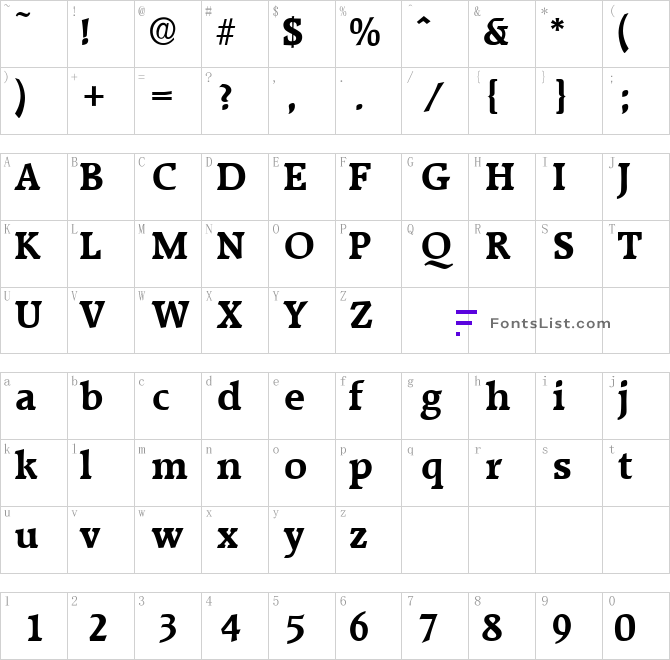
- Font Name:AliBecker
- Full Name:AliBecker Bold
AliBecker-Bold.ttf is a very beautiful artistic font, AliBecker-Bold.ttf is widely used in the design and printing of various books and pictures,AliBecker-Bold.ttf has a strong visual impact,AliBecker-Bold.ttf is a commonly used font in newspapers, magazines and books, and is used in posters, e-commerce Poster design, store design, logo design, font design and other fields.AliBecker-Bold.